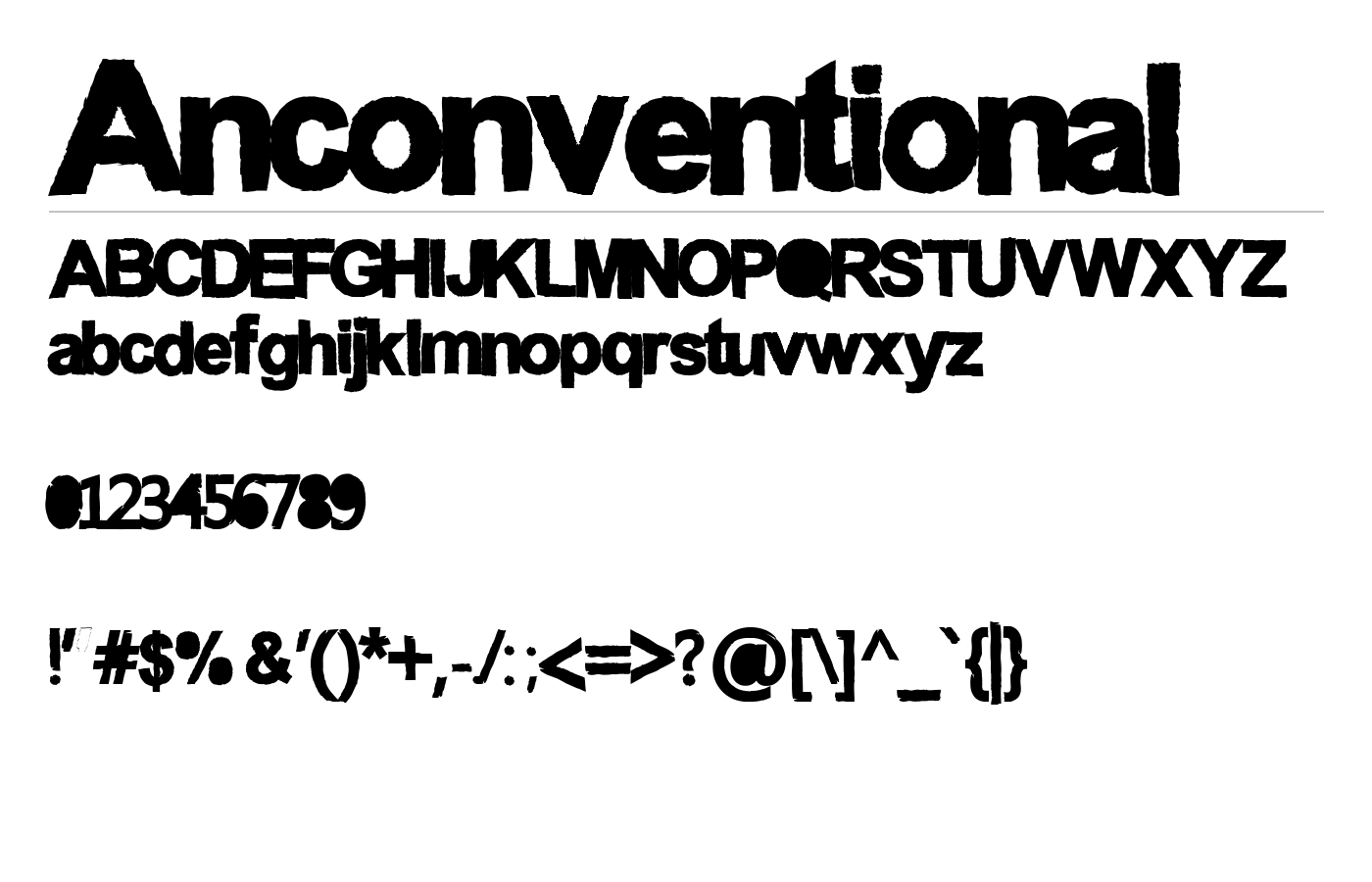
Anconventional is a bold, heavy sans serif font with a rough and textured appearance that gives it a hand-crafted, organic feel. Its irregular edges and wide letterforms create a strong, impactful presence, making it perfect for designs seeking a raw, edgy, and unconventional look. This font works well for headlines, posters, and branding projects that want to communicate creativity and individuality.
Anconventional Font
About Anconventional Font
| Font family | Anconventional Font |
| Designer | Jeanlouis David Amodio |